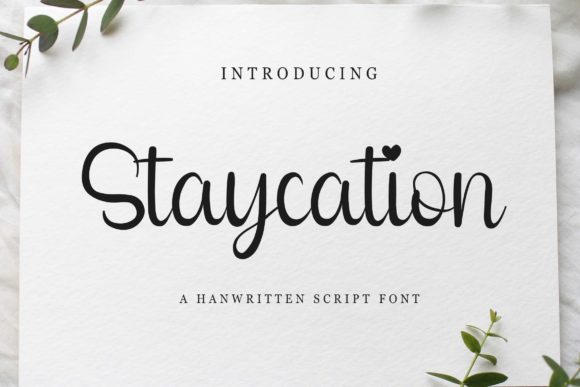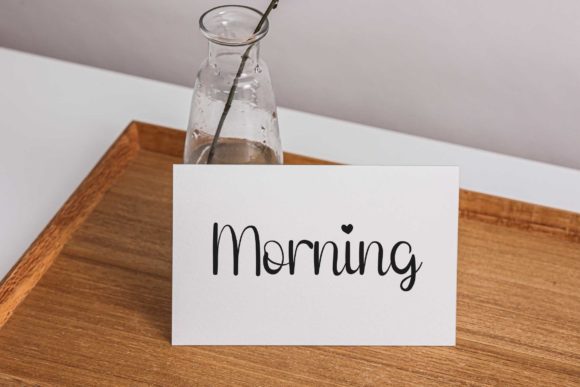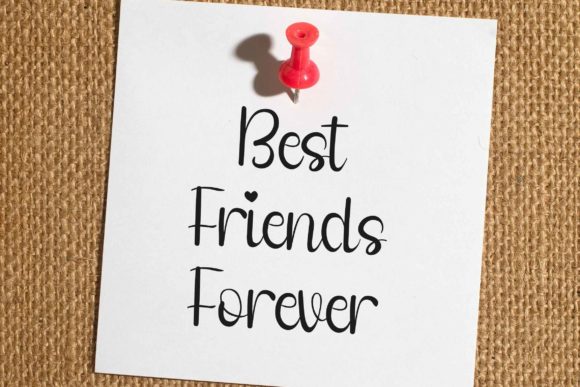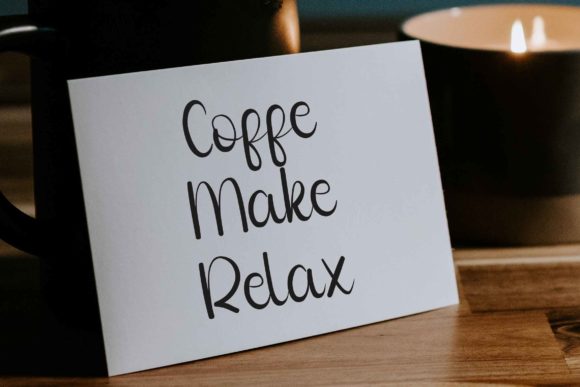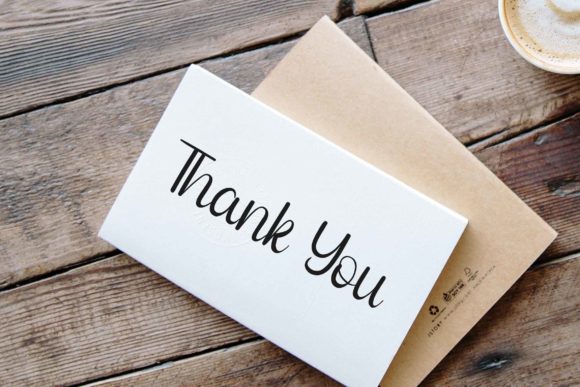
Staycation Font
About Staycation Font
Staycation stands out as a simple yet authentically handwritten font, offering a versatile and genuine quality that makes it an optimal choice for a range of creative projects. Whether you’re in the process of crafting logos, designing greeting cards, establishing brand identities on T-shirts, or curating compelling quotes, Staycation proves itself to be a go-to font that blends simplicity with authenticity.
The charm of Staycation lies in its unpretentious nature, making it approachable and adaptable to various design contexts. Its handwritten authenticity adds a human touch to your projects, creating a connection with the audience that goes beyond the written word. This font excels in communicating a sense of genuineness, making it particularly well-suited for endeavors that require an element of sincerity.
Staycation’s strength lies not only in its simplicity but also in its potential for creativity. The more you explore and experiment with this font, the more extraordinary it becomes. Its unassuming design serves as a canvas for your creative expression, inviting you to infuse your unique style and ideas. Whether you’re working on a playful logo, a heartfelt greeting card, or a visually engaging T-shirt design, Staycation adapts seamlessly to your vision.
As a choice for quotes, Staycation lends a down-to-earth yet impactful aesthetic. The genuine handwritten feel adds authenticity to the words, creating memorable and relatable quotes that resonate with your audience.
Don’t be afraid to push the boundaries of creativity with Staycation. Its simplicity is its strength, allowing you the freedom to experiment and create designs that stand out. Embrace the authenticity of Staycation, and let it be a catalyst for your imaginative journey, turning your projects into extraordinary expressions of your unique perspective.